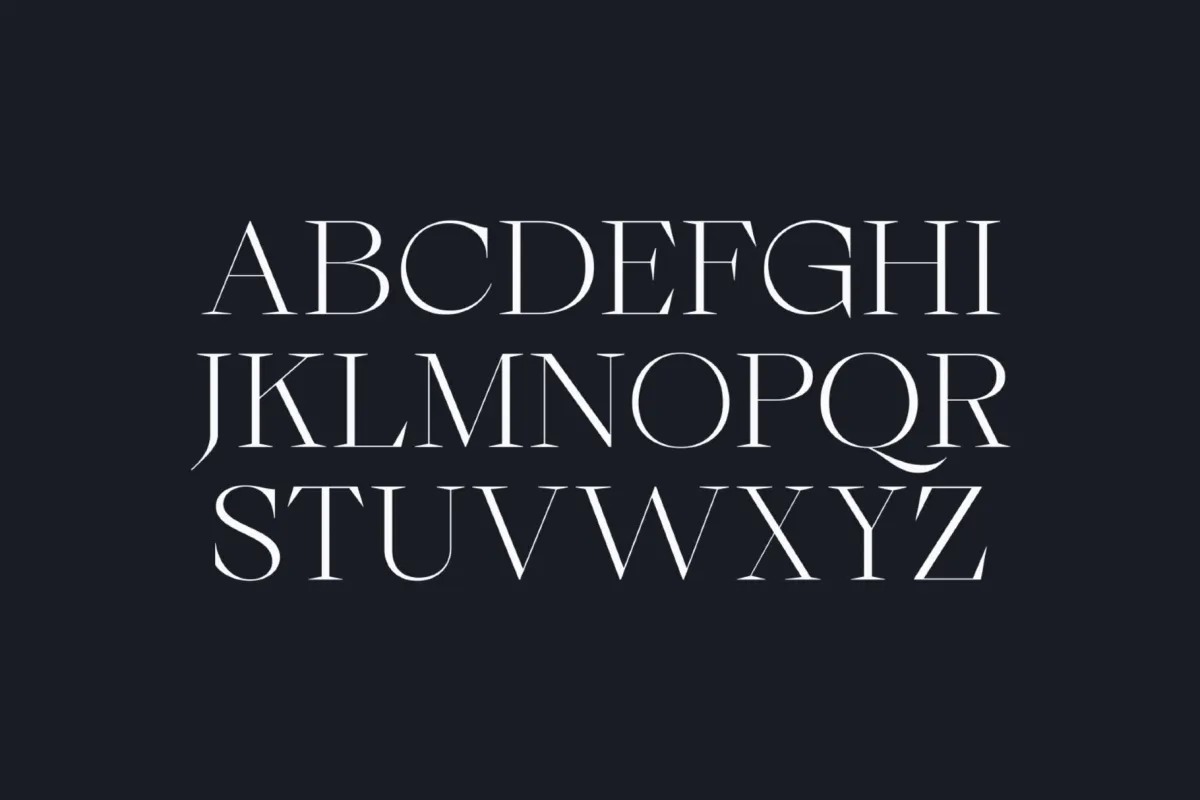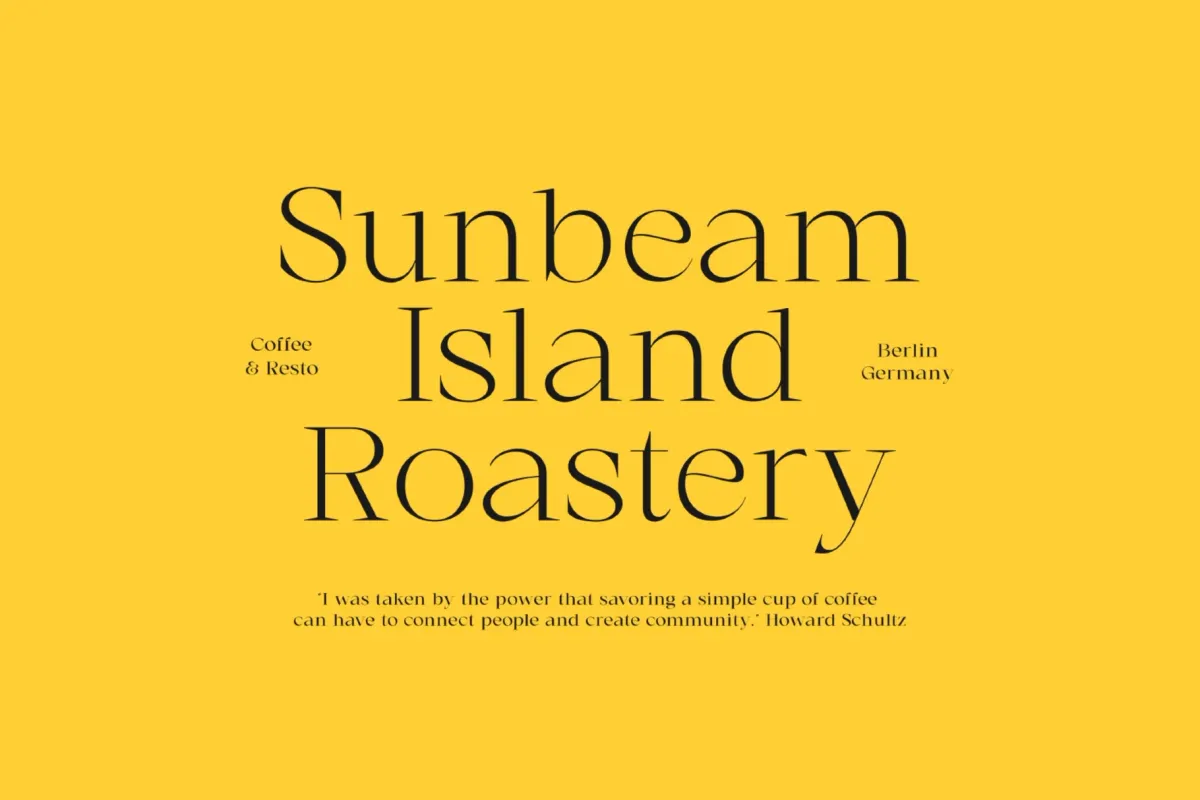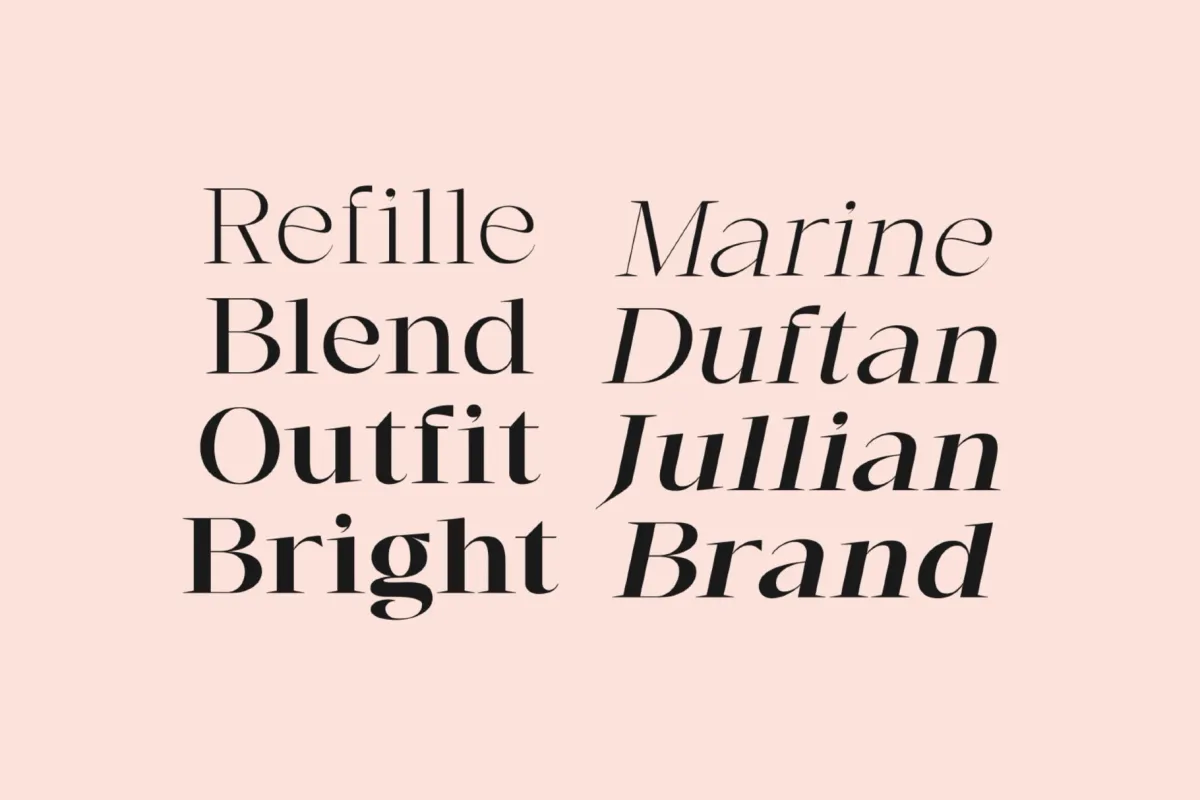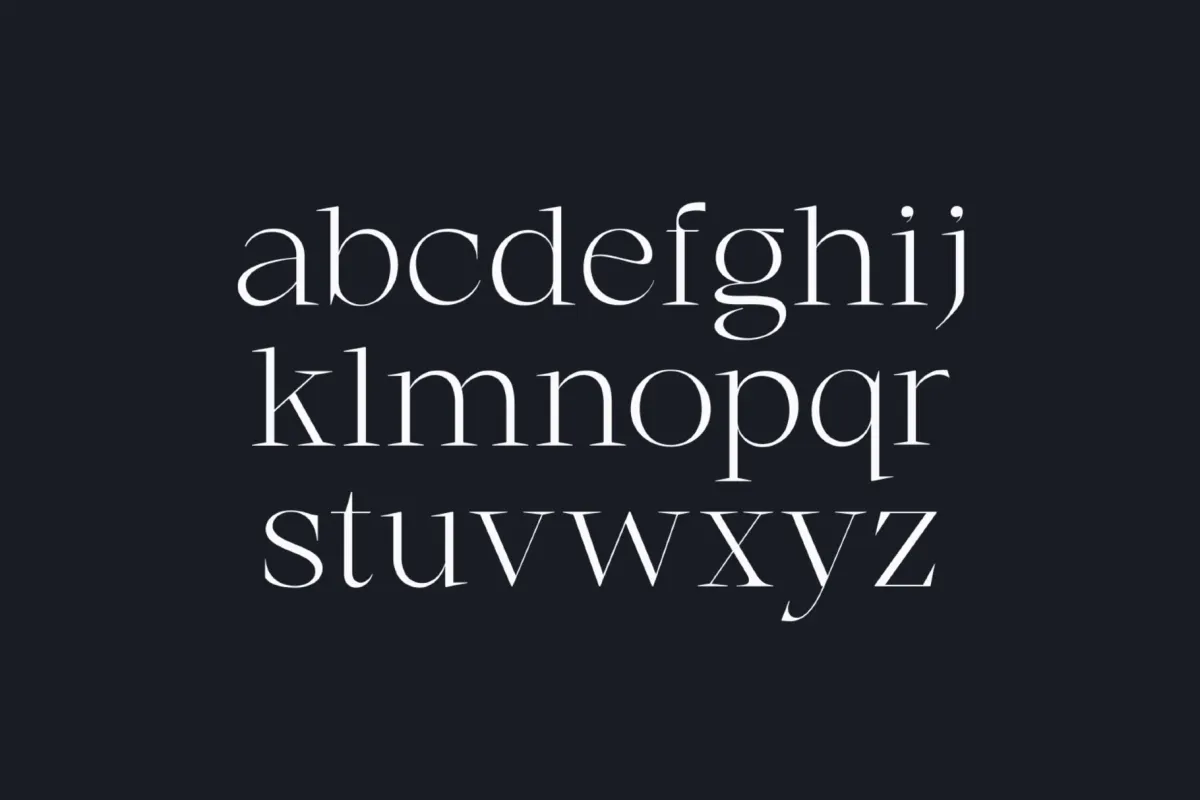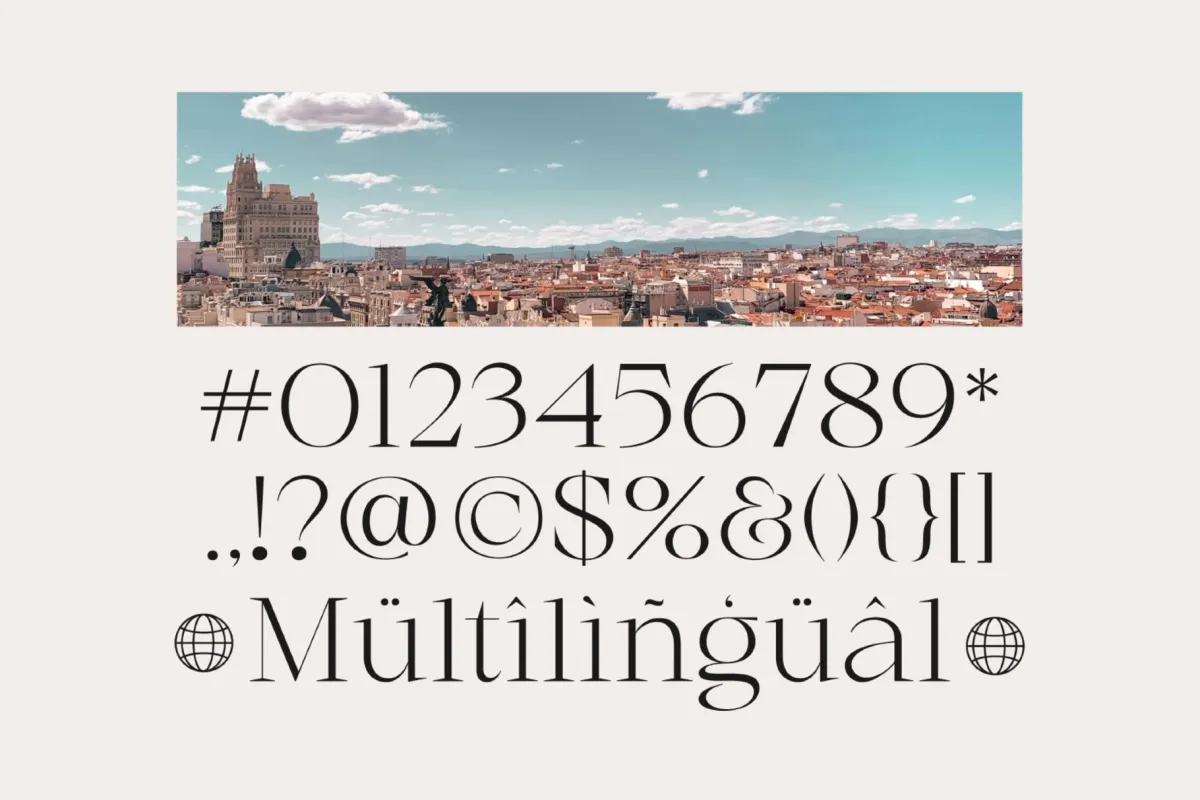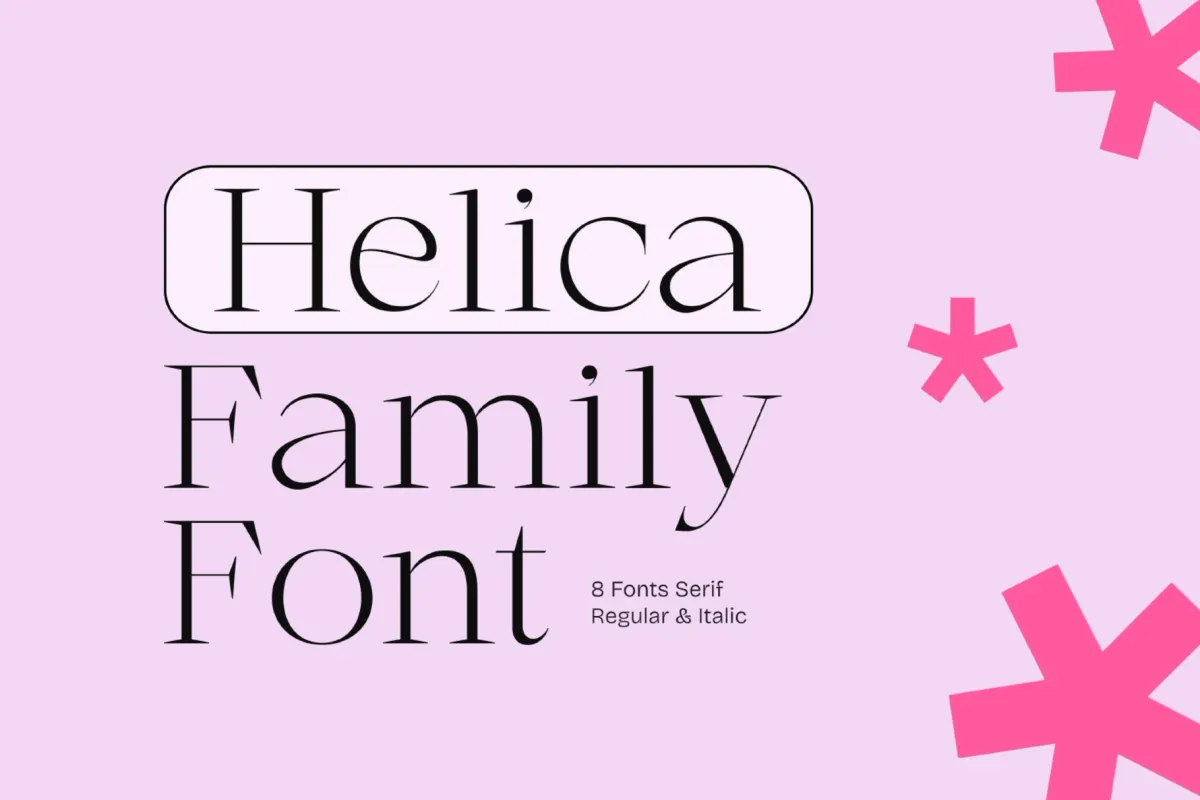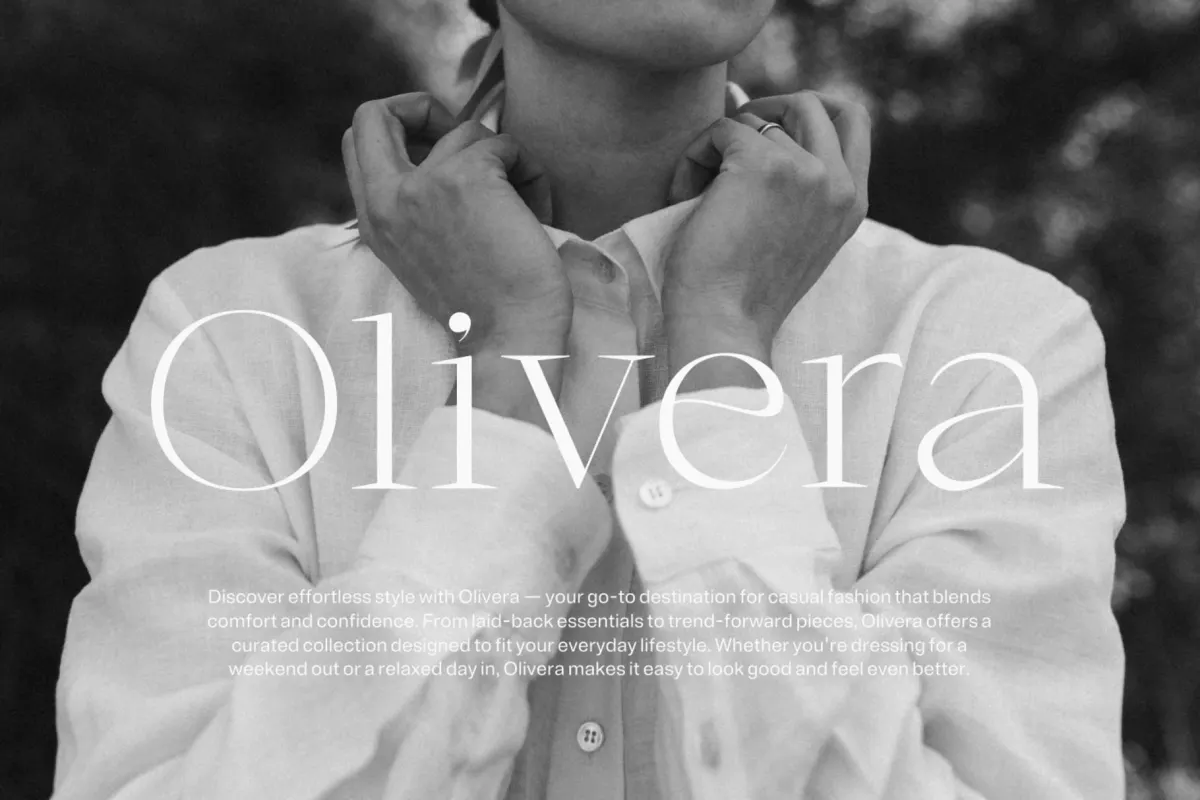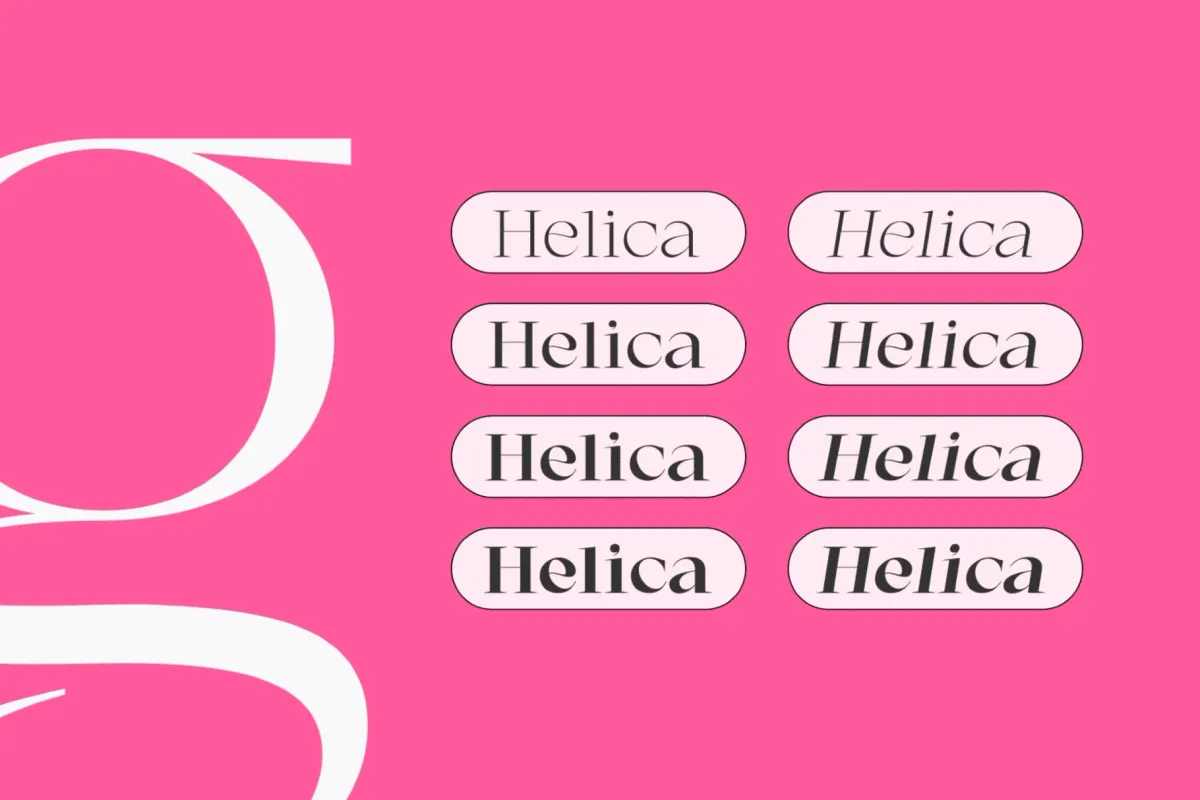
Helica - Elegant Serif Font Family
Helica is an elegant serif family built on high-contrast strokes and ball terminals, with a few flared descenders on letters like y and g that keep the shapes moving instead of stopping short. The family runs eight styles deep — Thin through Bold, each with a matching italic — so the same letterforms scale from a whisper-thin headline down to a dense bold logotype without breaking character.
The design holds a steady rhythm across display and text sizes, so one family can carry a logotype and the paragraph underneath it without a font swap. Use it for editorial layouts, fashion and lifestyle branding, café and restaurant identities, packaging, wedding stationery, and web headlines.
- 8 styles: Thin, Regular, SemiBold, Bold, plus matching italics;
- uppercase & lowercase;
- numerals, punctuation & symbols;
- stylistic alternates;
- multilingual support;
- 374 glyphs per style.